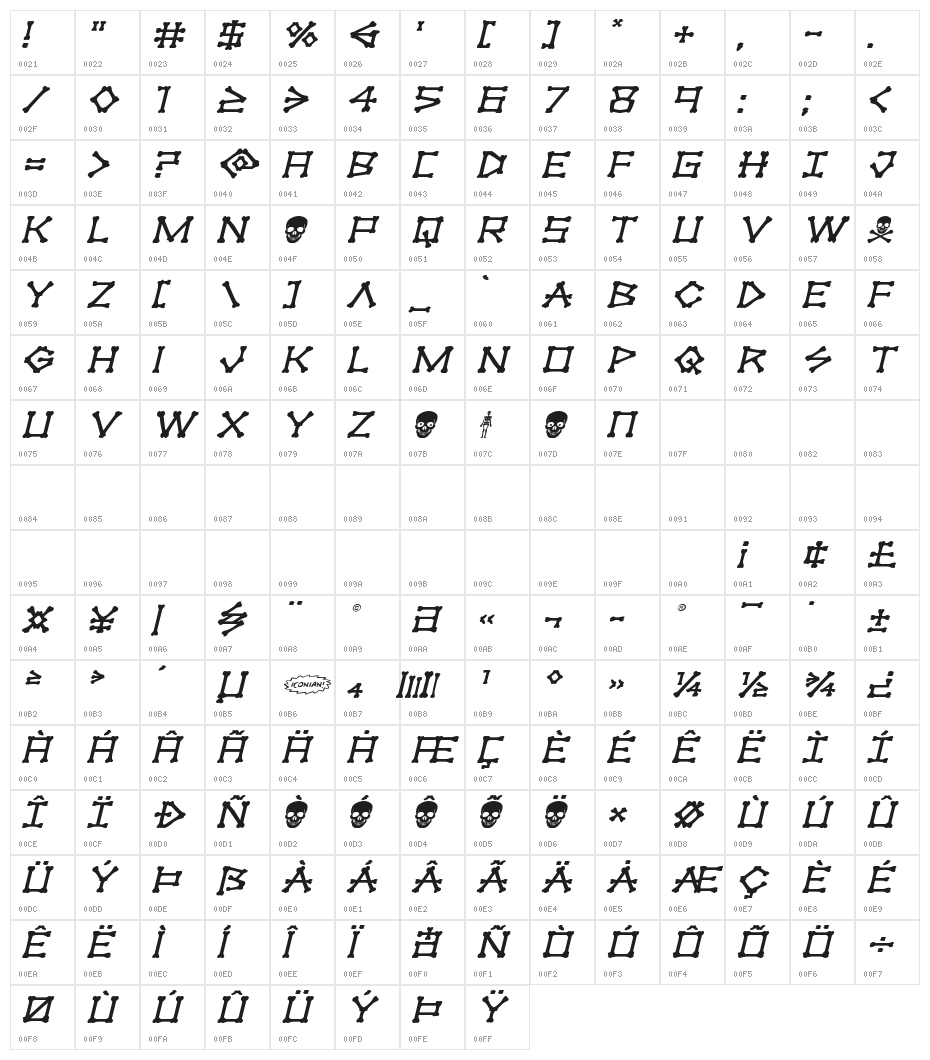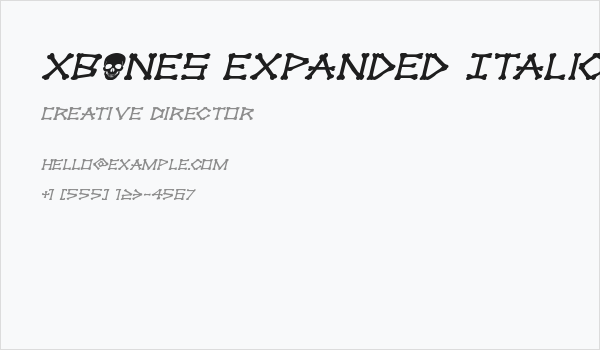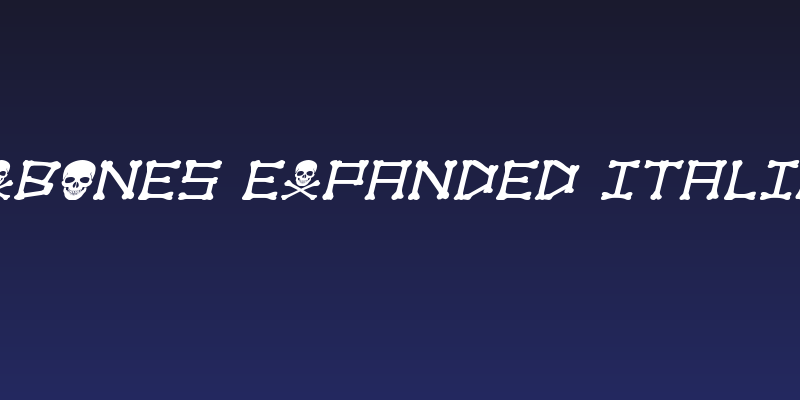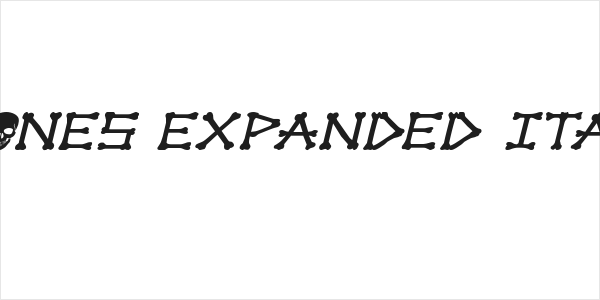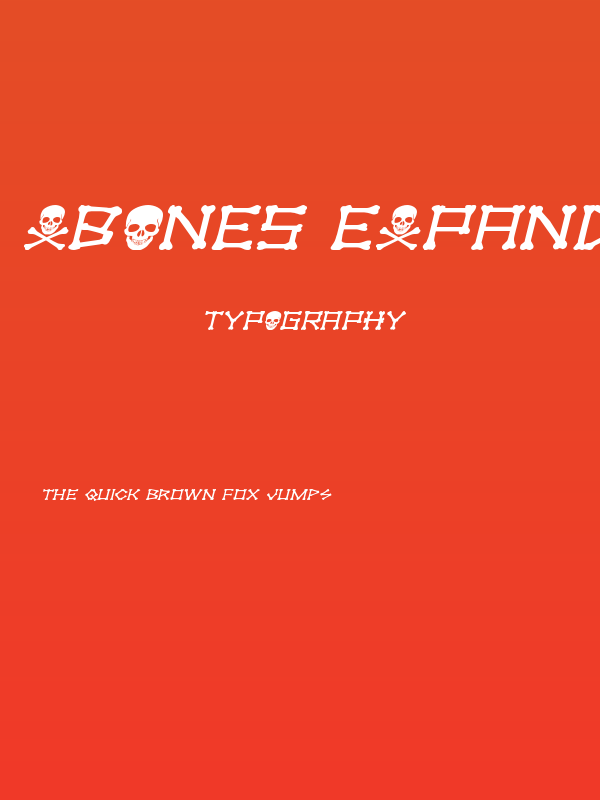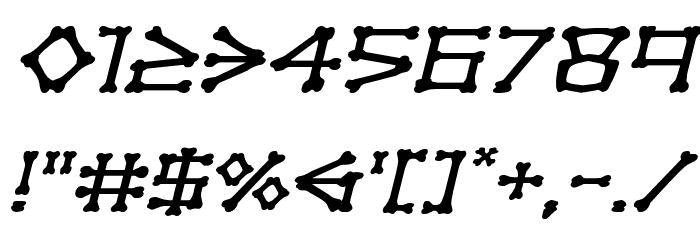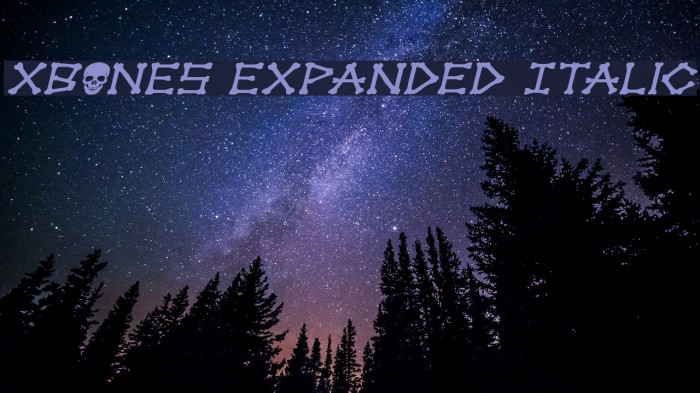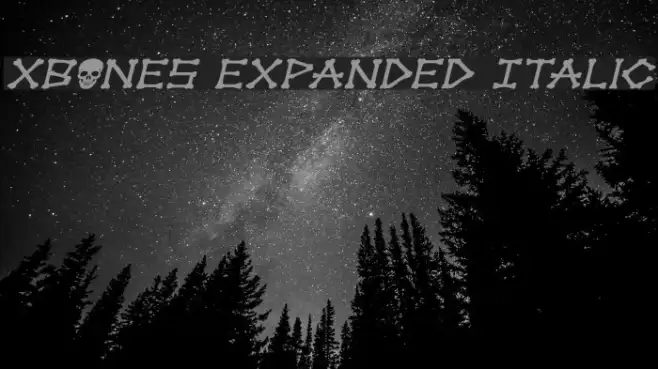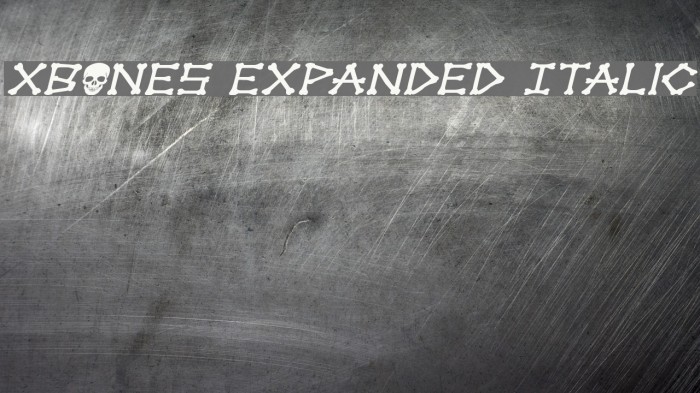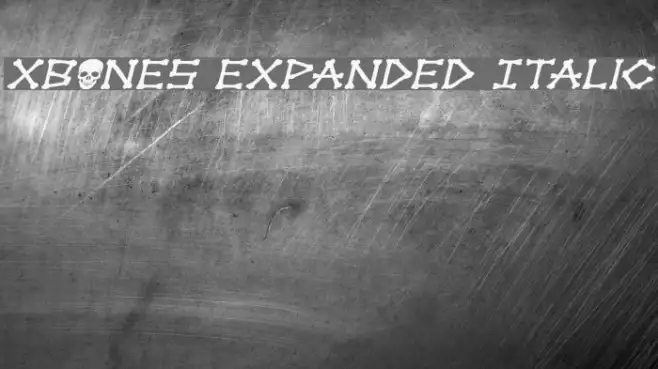
xBONES Expanded Italic Font
xBONES Expanded Italic Description
This font features a unique and playful design, with characters resembling bones or skeletal structures. The uppercase and lowercase letters maintain a consistent theme, with each character appearing as if constructed from bone-like elements. The inclusion of skull motifs within certain letters adds a decorative and thematic touch, enhancing its visual appeal. The numbers and special characters follow the same skeletal style, ensuring uniformity across all glyphs. This font's expanded width and italicized form give it a dynamic and eye-catching appearance, making it suitable for creative and thematic projects.
| Use Case | Headlines, Logos, Themed Invitations |
| Proposed Projects | Ideal for Halloween-themed designs, horror movie posters, spooky invitations, or any project requiring a fun and eerie aesthetic. |